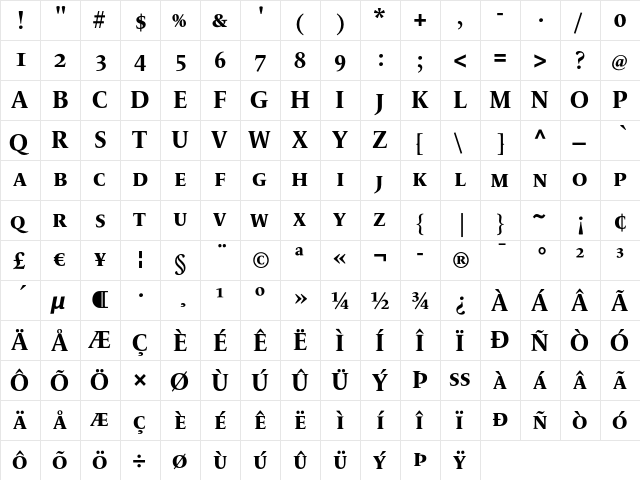
LeMonde Livre SC Bold Font Preview
LeMonde Livre SC Bold
Design Context for LeMonde Livre SC Typeface
LeMonde Livre SC is a composed and adaptable typeface that performs quietly and consistently across a wide range of design contexts. The heavy weight commands attention and anchors typographic hierarchies.